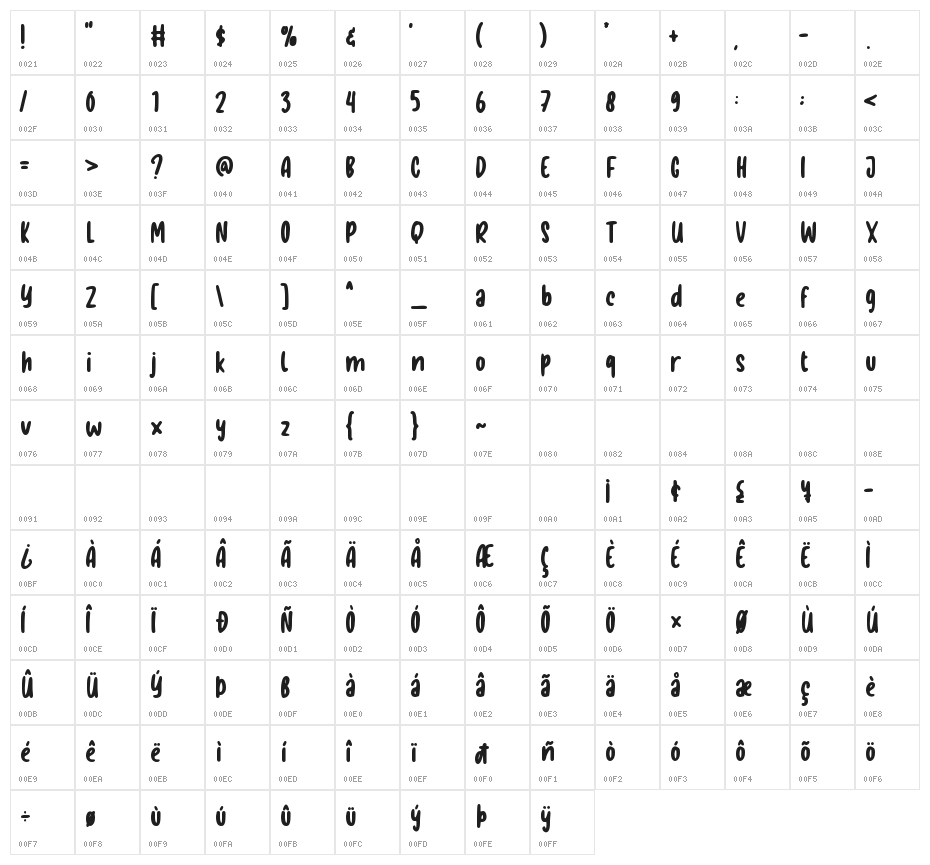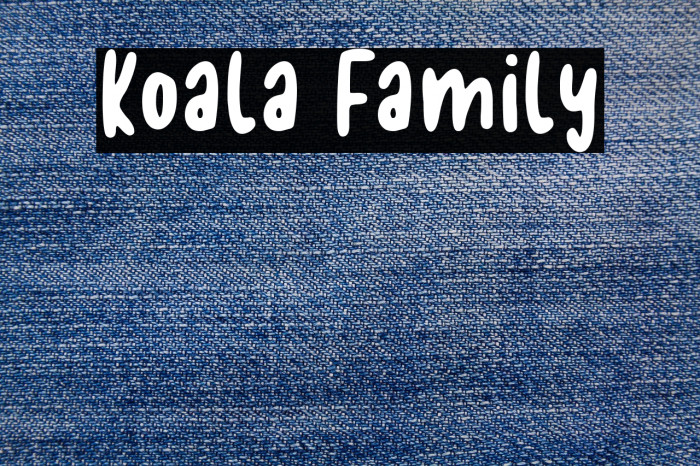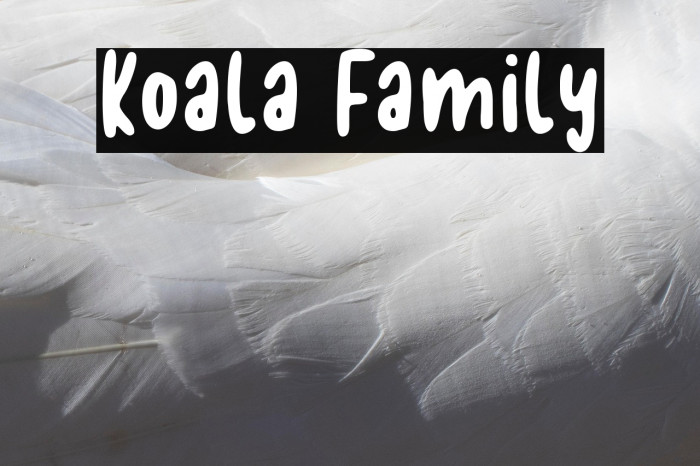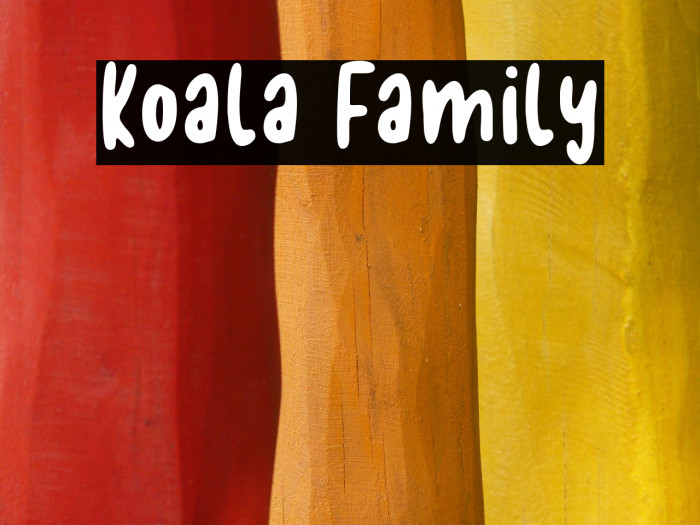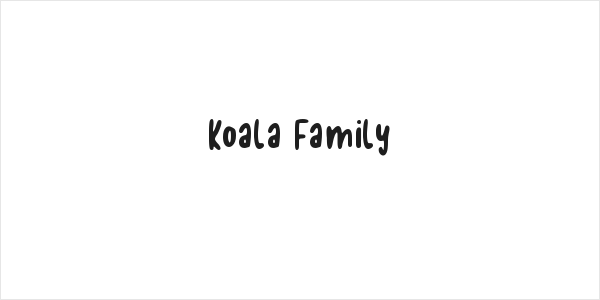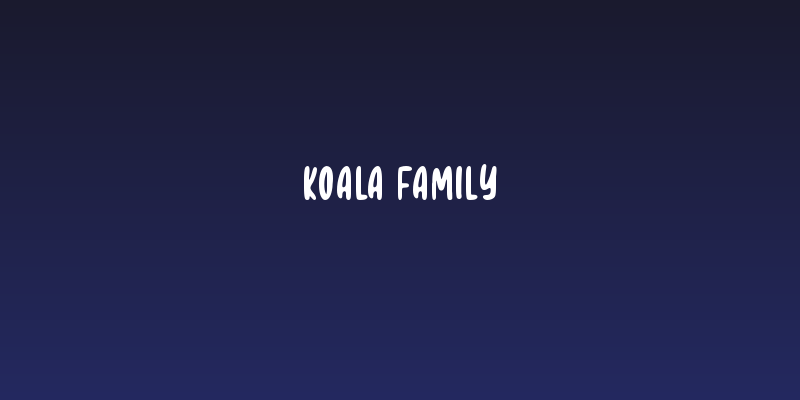
Koala Family Font
Koala Family Description
This playful and rounded font exudes a friendly and approachable vibe. The characters are bold and slightly irregular, giving it a hand-drawn appearance that adds a touch of whimsy. The uppercase and lowercase letters maintain a consistent style, with smooth curves and a slightly condensed form. The numbers and special characters follow the same playful design, making the font versatile for various creative projects. Its boldness ensures readability while the unique style makes it stand out, perfect for designs that require a personal touch.